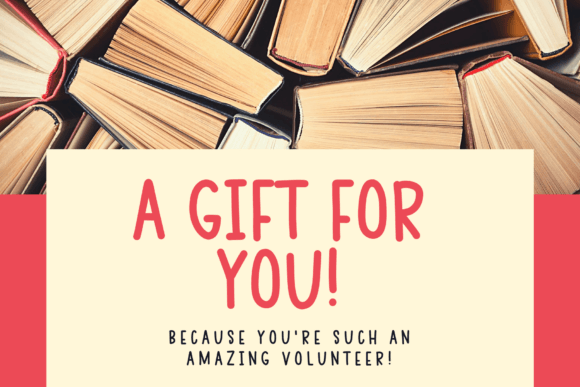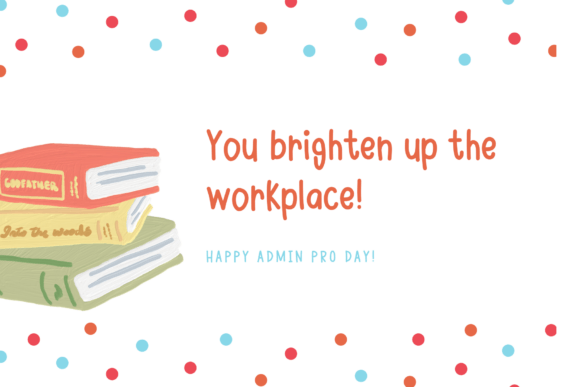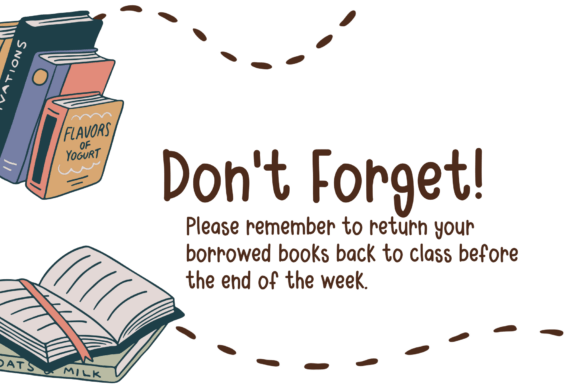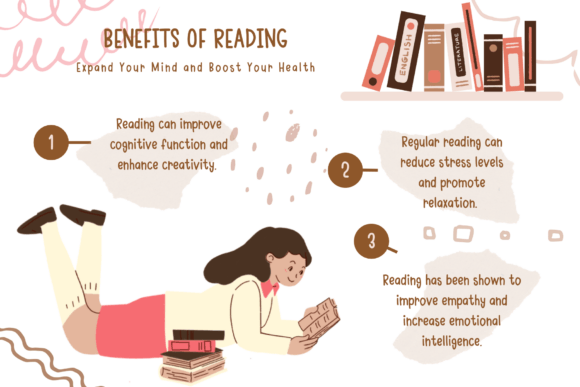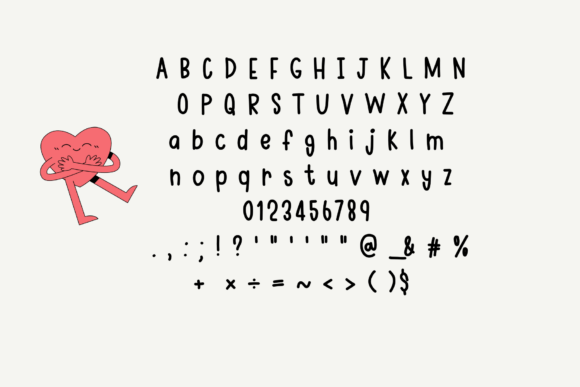
Introducing Happy New Me Font: The Perfect Handwritten Companion for Designers and Crafters
Are you on the hunt for a beautiful, handwritten font to elevate your designs and craft projects? Look no further than the Happy New Me Font! This lovely font is perfect for adding a personal touch to your notes, diaries, greeting cards, and so much more. In this article, we’ll dive into the world of Happy New Me Font and explore its endless possibilities for designers and crafters alike.
What is Happy New Me Font?
Happy New Me Font is a gorgeous handwritten font that’s perfect for adding a touch of warmth and personality to your designs. Its unique, cursive style makes it ideal for a variety of projects, from everyday notes and journals to beautiful greeting cards and social media posts.
Uses for Happy New Me Font
One of the best things about Happy New Me Font is its versatility. Here are just a few ideas to get you started:
- Note-taking and journaling: Add a personal touch to your notes and journals with Happy New Me Font. It’s perfect for writing down your thoughts, goals, and ideas.
- Greeting cards: Create beautiful, one-of-a-kind greeting cards for special occasions like birthdays, holidays, and weddings.
- Banners and signs: Use Happy New Me Font to create eye-catching banners and signs for parties, events, and everyday decor.
- Social media posts: Add a touch of personality to your social media posts with Happy New Me Font. It’s perfect for creating engaging and shareable content.
- Mugs, cards, and shirts: Use Happy New Me Font to create custom mugs, cards, and shirts for yourself or as gifts.
- Stationery: Create beautiful stationery sets with Happy New Me Font, complete with letterheads, notecards, and envelopes.
Why Choose Happy New Me Font?
So, what sets Happy New Me Font apart from other fonts? Here are just a few reasons why designers and crafters love this font:
- Unique and eye-catching: Happy New Me Font has a distinctive, handwritten style that’s sure to grab attention.
- Easy to read: Despite its decorative style, Happy New Me Font is easy to read and understand, making it perfect for a variety of projects.
- Versatile: Happy New Me Font can be used for both personal and professional projects, from everyday notes to commercial designs.
- High-quality: Happy New Me Font is a high-quality font that’s designed to produce crisp, clear results.
Tips for Using Happy New Me Font
Now that you know a little more about Happy New Me Font, here are some tips for using it in your designs:
- Experiment with colors: Happy New Me Font looks great in a variety of colors, from bold and bright to soft and pastel.
- Mix and match: Combine Happy New Me Font with other fonts and graphics to create unique and eye-catching designs.
- Pay attention to spacing: Make sure to leave enough space between lines and words to ensure that your text is easy to read.
- Have fun: Most importantly, have fun with Happy New Me Font! Experiment with different styles and techniques to make the font your own.
In conclusion, Happy New Me Font is a beautiful, versatile font that’s perfect for designers and crafters alike. Its unique, handwritten style makes it ideal for a variety of projects, from everyday notes and journals to beautiful greeting cards and social media posts. With its ease of use, high-quality design, and endless possibilities, Happy New Me Font is sure to become a favorite in your design toolkit.